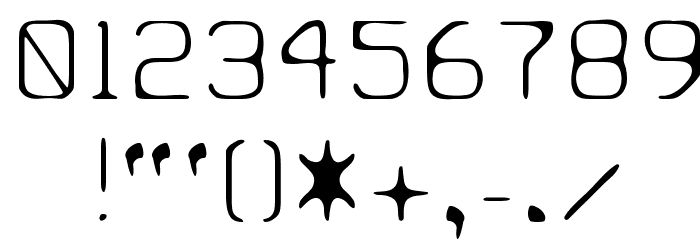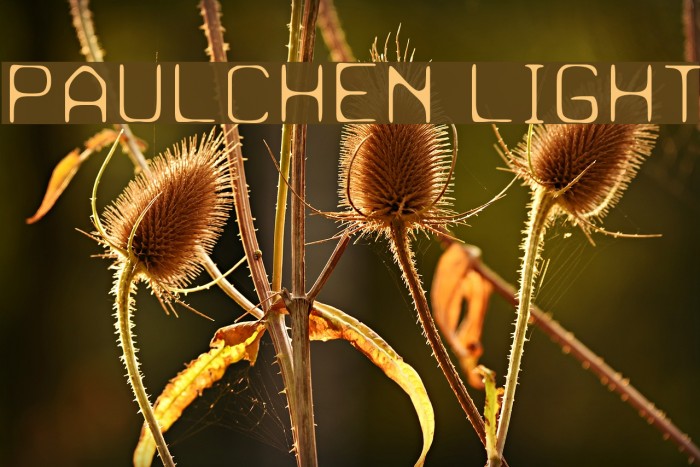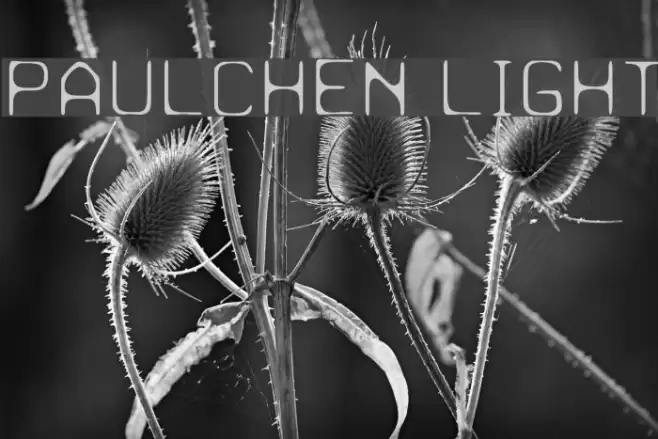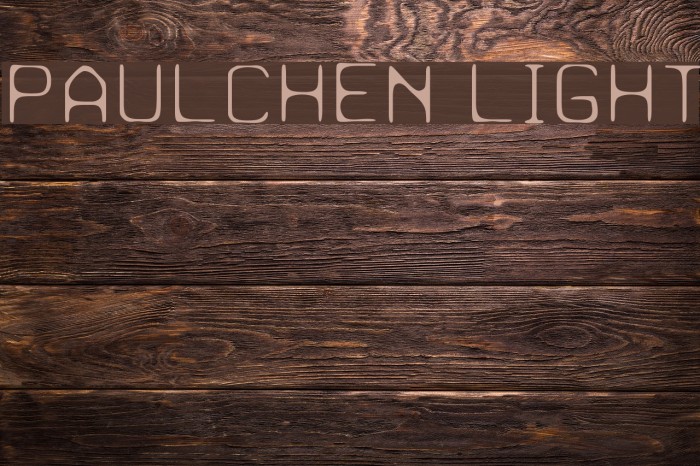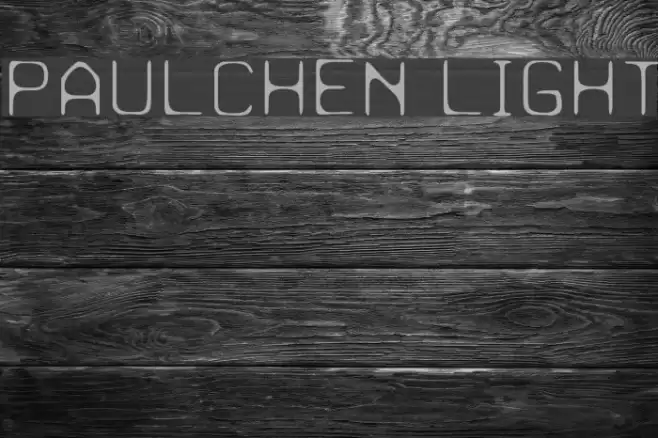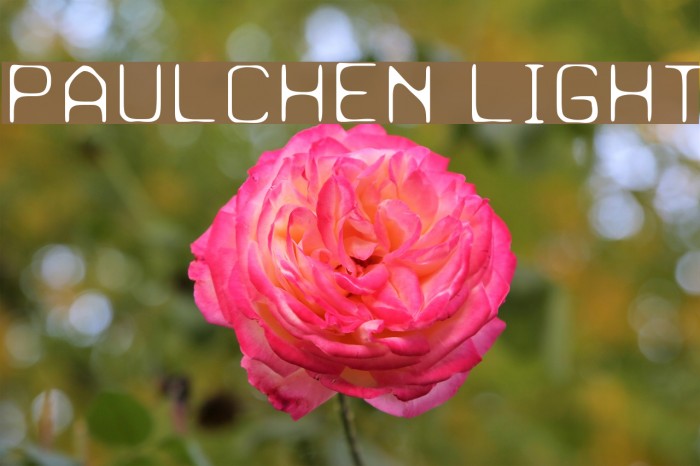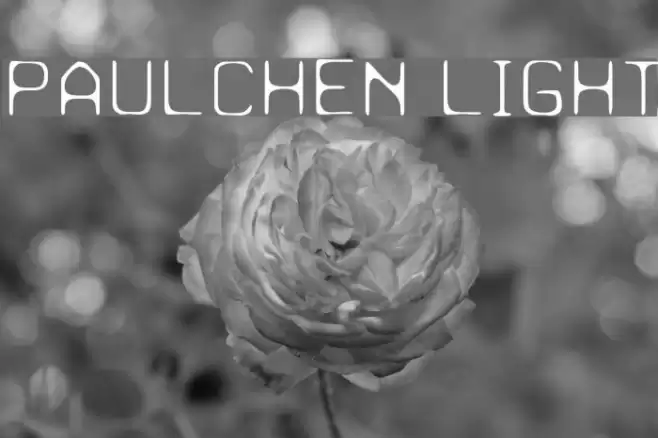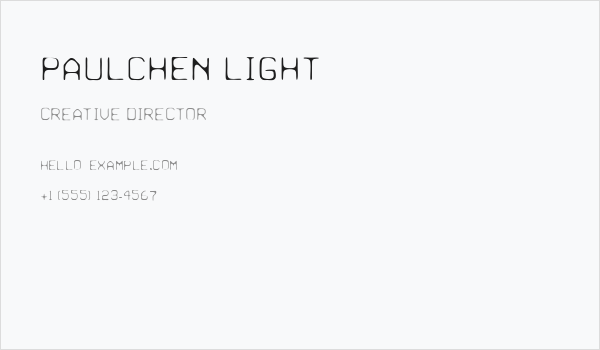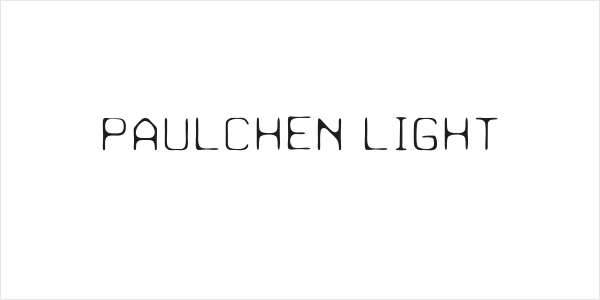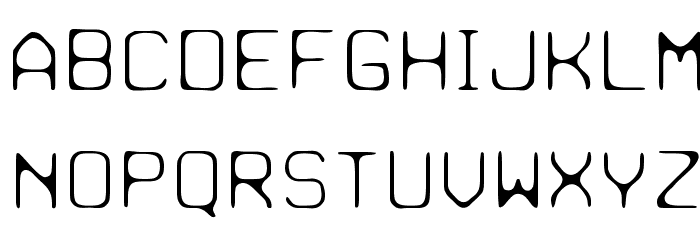
Paulchen Light Font
Paulchen Light Description
This font features a unique and playful design with rounded edges and a slightly condensed form. The characters have a consistent stroke width, giving it a clean and modern appearance. The uppercase and lowercase letters maintain a uniform style, with the lowercase letters mirroring the uppercase in form but with a smaller size. The numerals are distinct and easy to read, matching the overall aesthetic of the alphabet. Special characters are creatively designed, adding a whimsical touch to the font. The overall look is both approachable and stylish, making it suitable for a variety of creative applications.
| Proposed Projects | Ideal for children's books, playful branding, creative posters, and modern web design. |